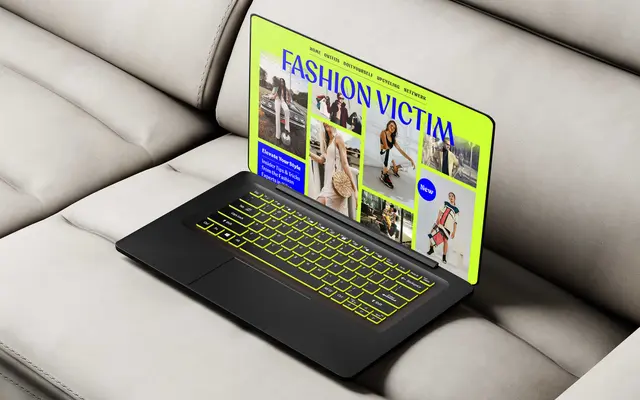
A high-contrast display sans drawing on Art Nouveau's organic forms and calligraphic warmth, aimed at lifestyle branding and packaging.
Built around a slightly top-heavy structure with subtle calligraphic inflections, Aquavit sits between a precision sans and a decorative revival. The Art Nouveau influence appears in its flowing proportions and expressive stroke contrast rather than overt ornament. Flood Fonts position it for beauty, fashion and food-and-beverage branding where legibility at smaller sizes is still required alongside headline impact.
A high-contrast sans with Art Nouveau calligraphic influences and a slightly top-heavy structure. Classified as display due to its expressive, decorative character suited to headlines and logotypes rather than sustained text.